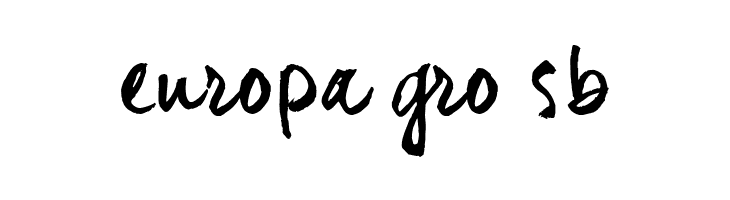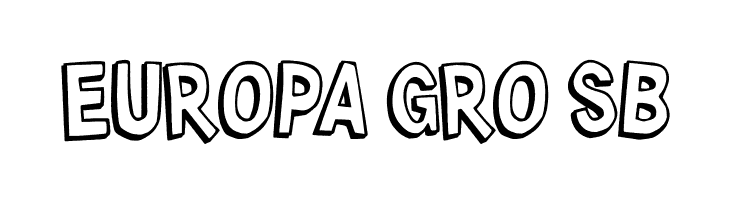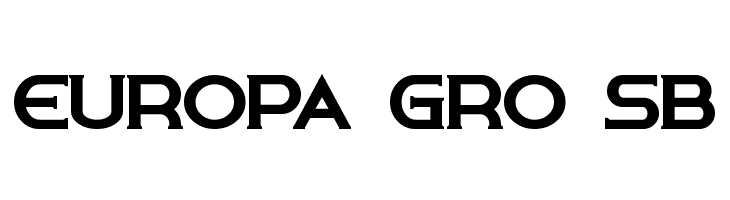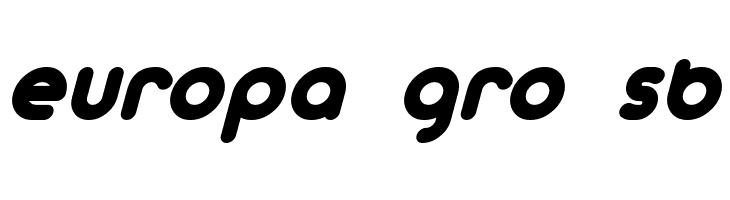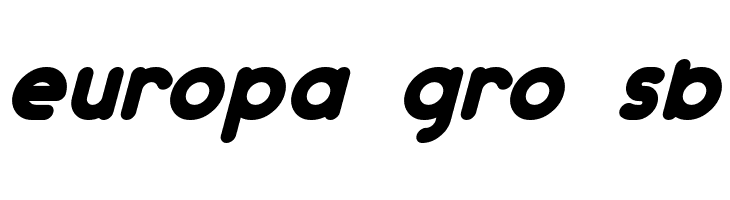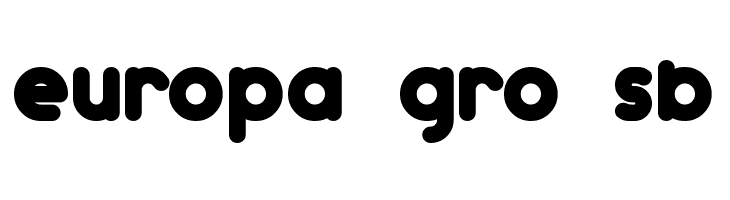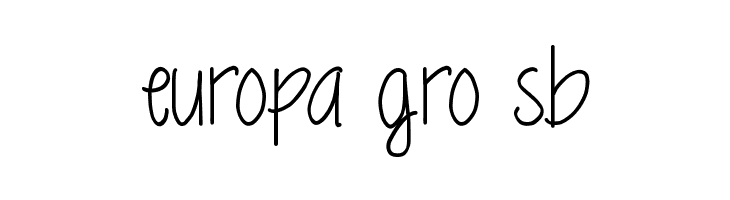
A dynamic, brush-style font with expressive strokes and fluid motion.
A playful, hand-drawn font with bold, outlined characters.
A bold, futuristic font with geometric shapes and sharp angles.
A playful, bold, and rounded italic font with a dynamic and energetic style.
A bold, rounded, and italicized font with a playful and modern style.
A bold, rounded font with smooth curves and uniform strokes.
A playful, handwritten font with a casual and whimsical style.